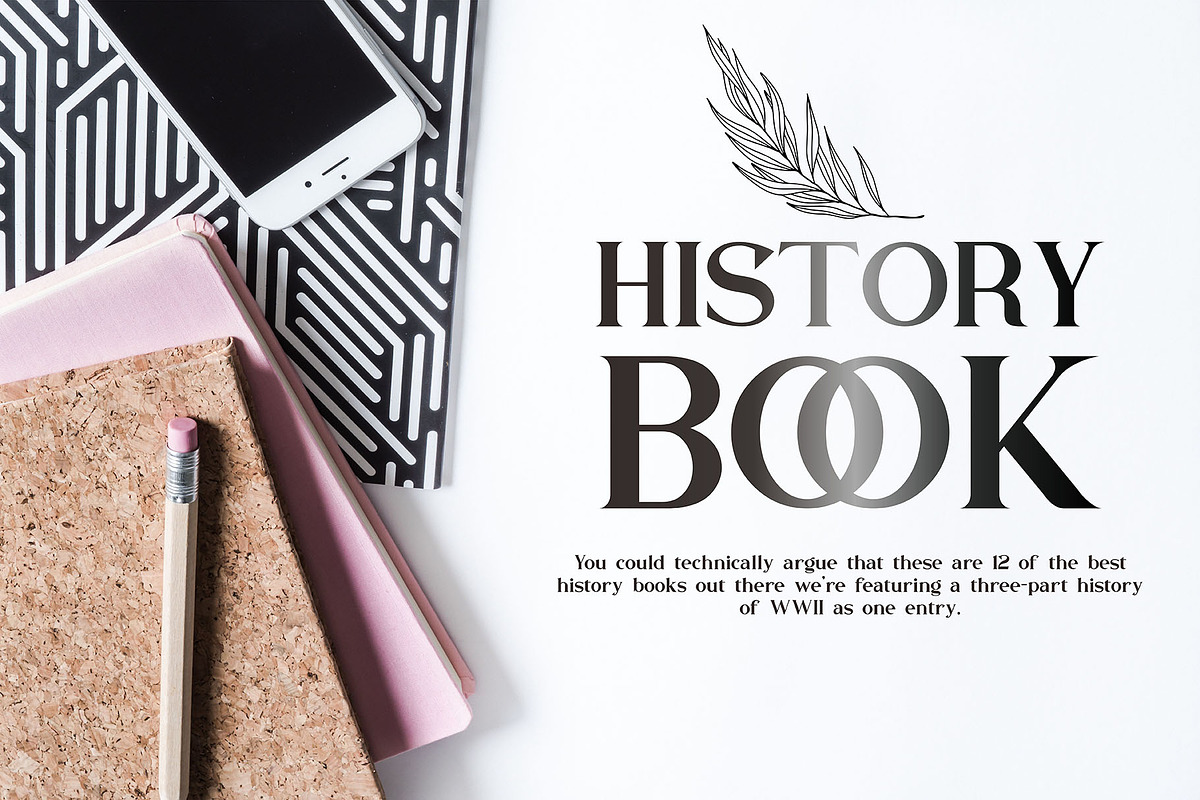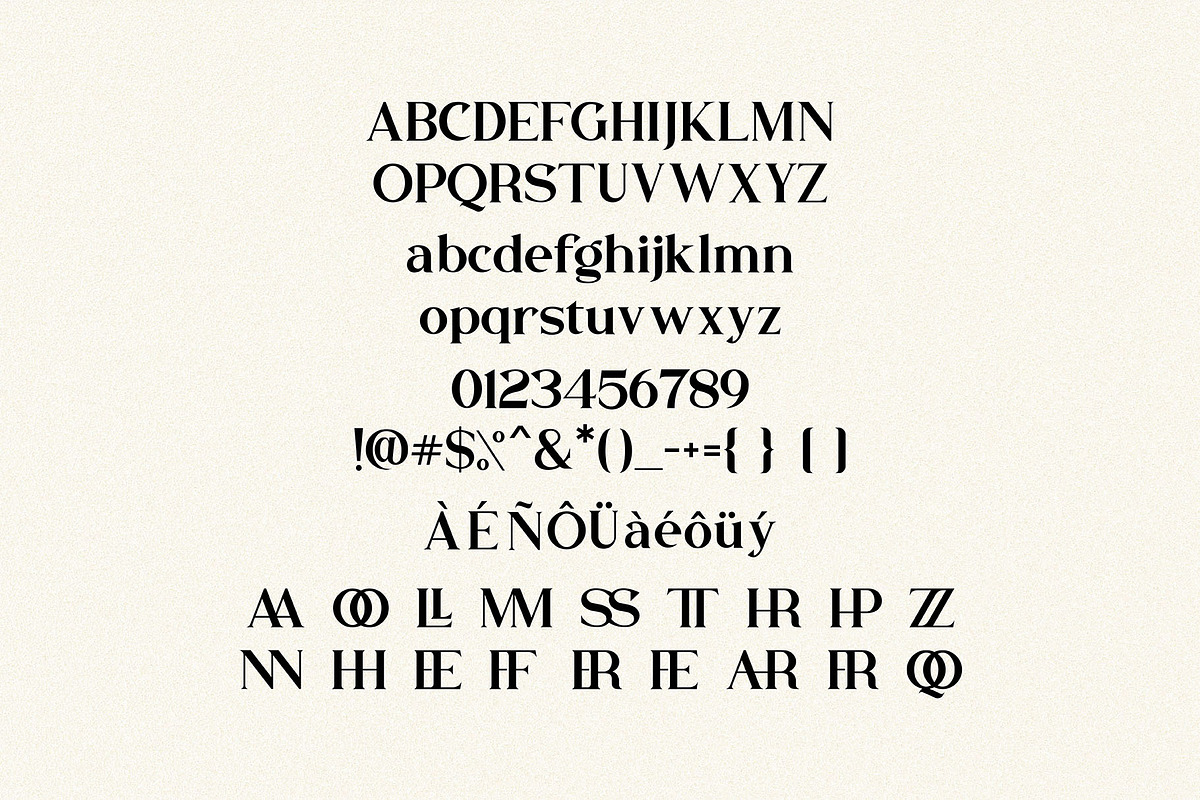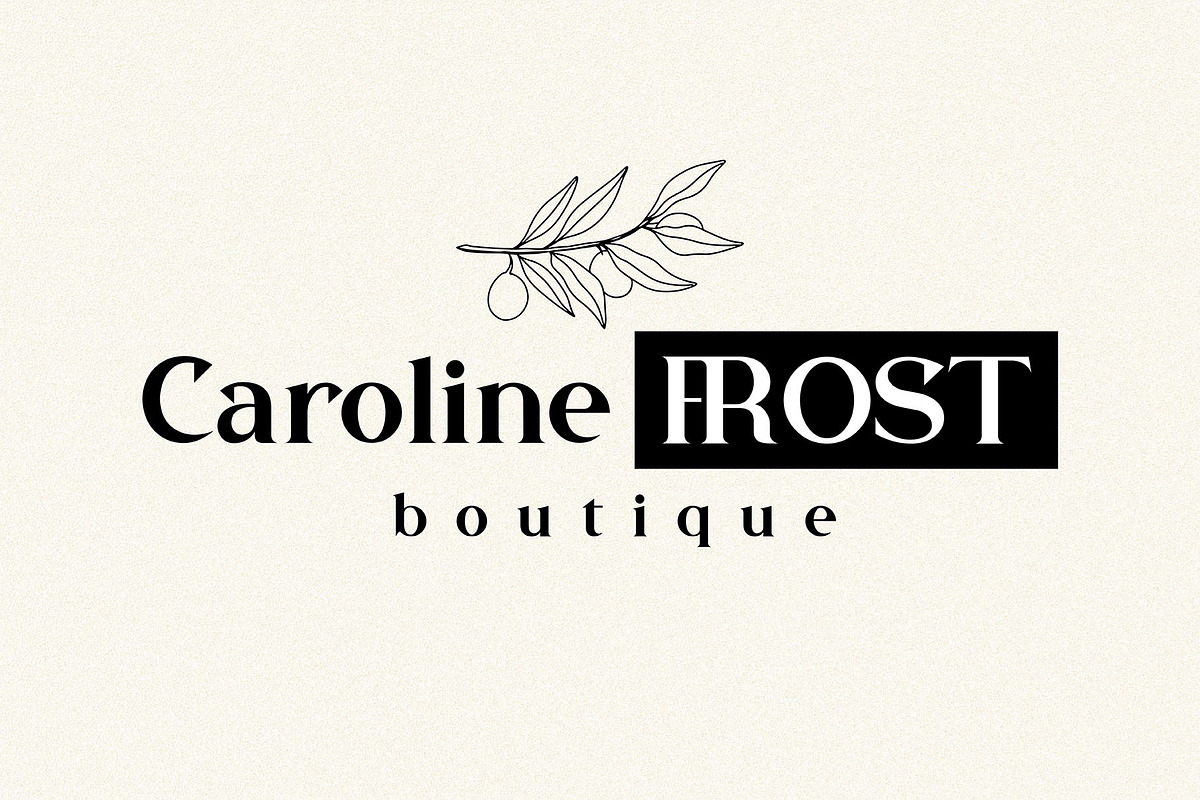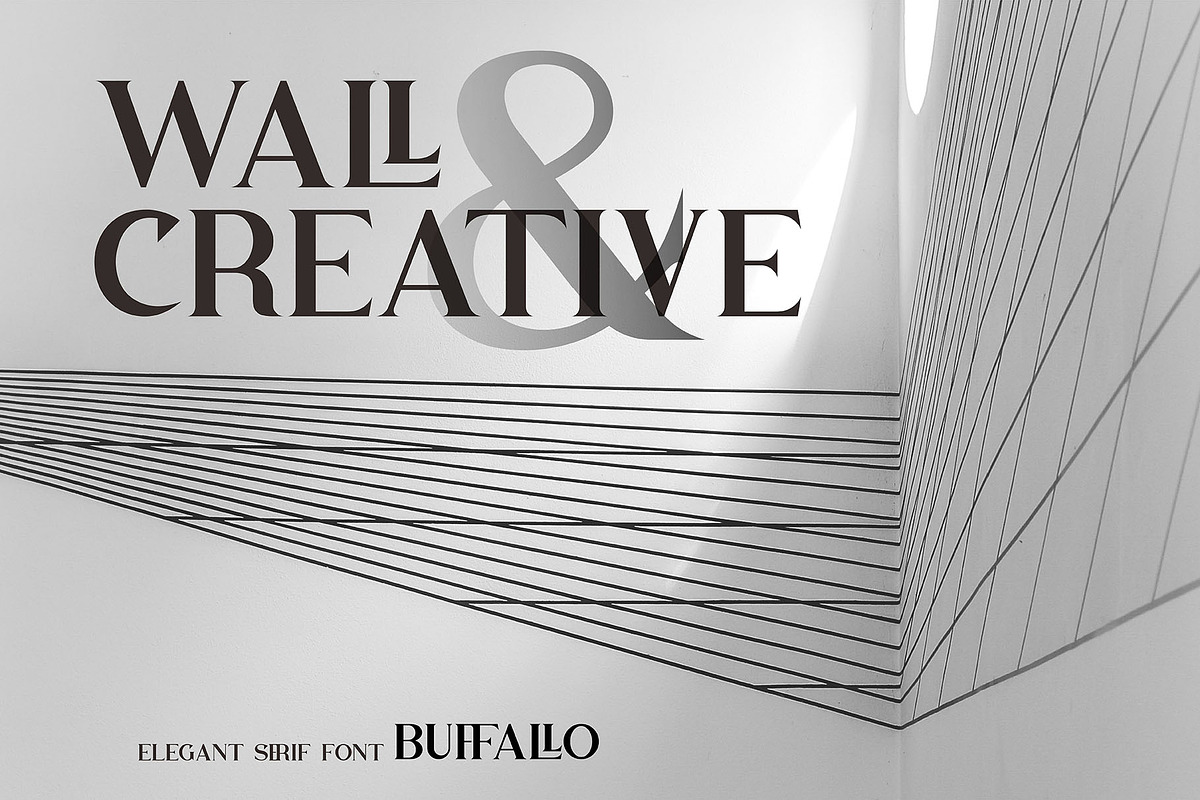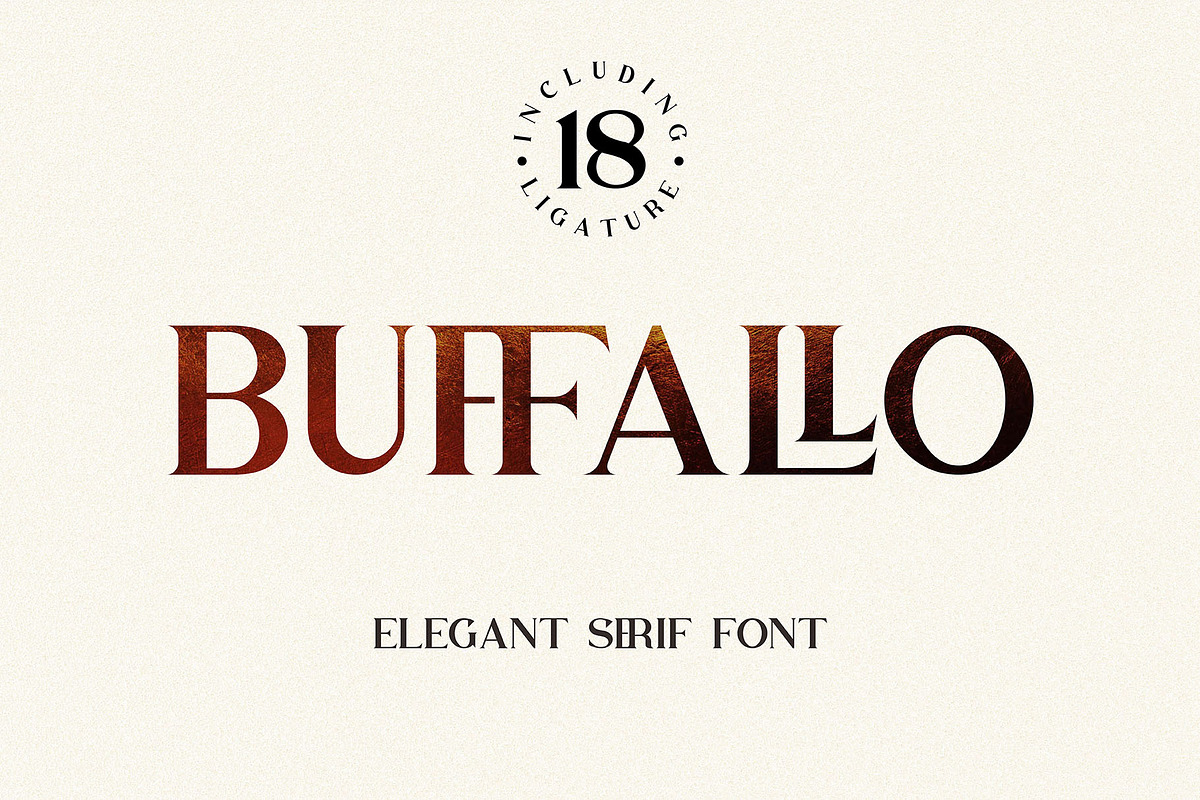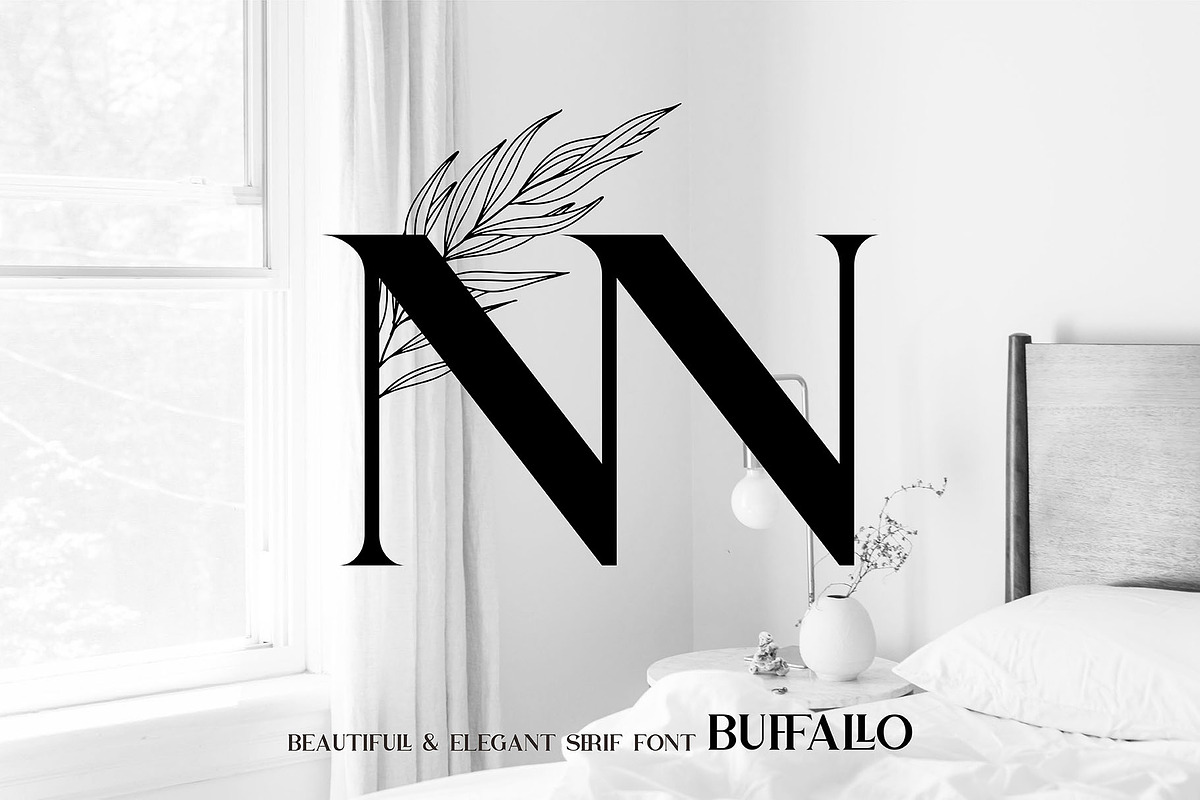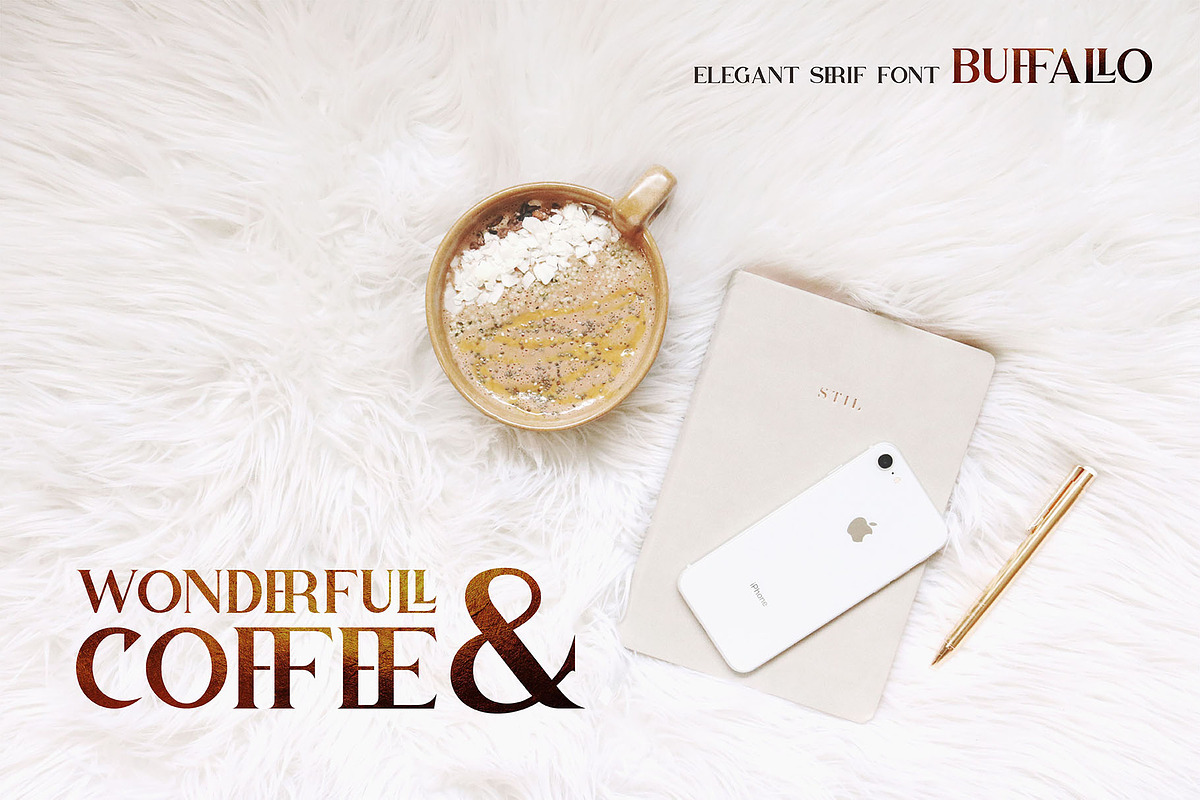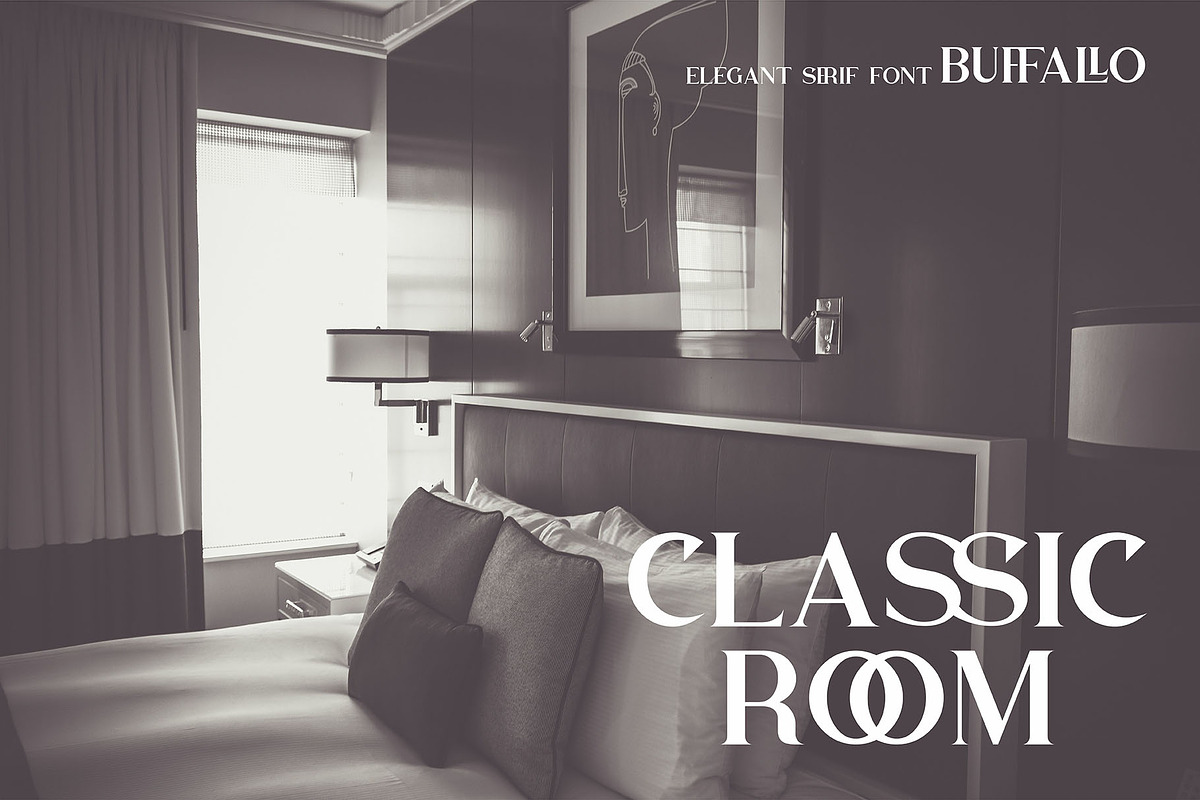
Buffallo - Serif Font
Create gorgeous + timeless designs and logos with Buffallo, beautifull & elegant serif. London's thick to thin contrast and sleek lines make it perfect for logos, quotes, invitations, weddings, business cards, powerpoint presentations, and more!
Numbers + Punctuation
full set of punctuation and numerals, with opentype features with ligature
An broader version of the font for a Buffallo different feel.